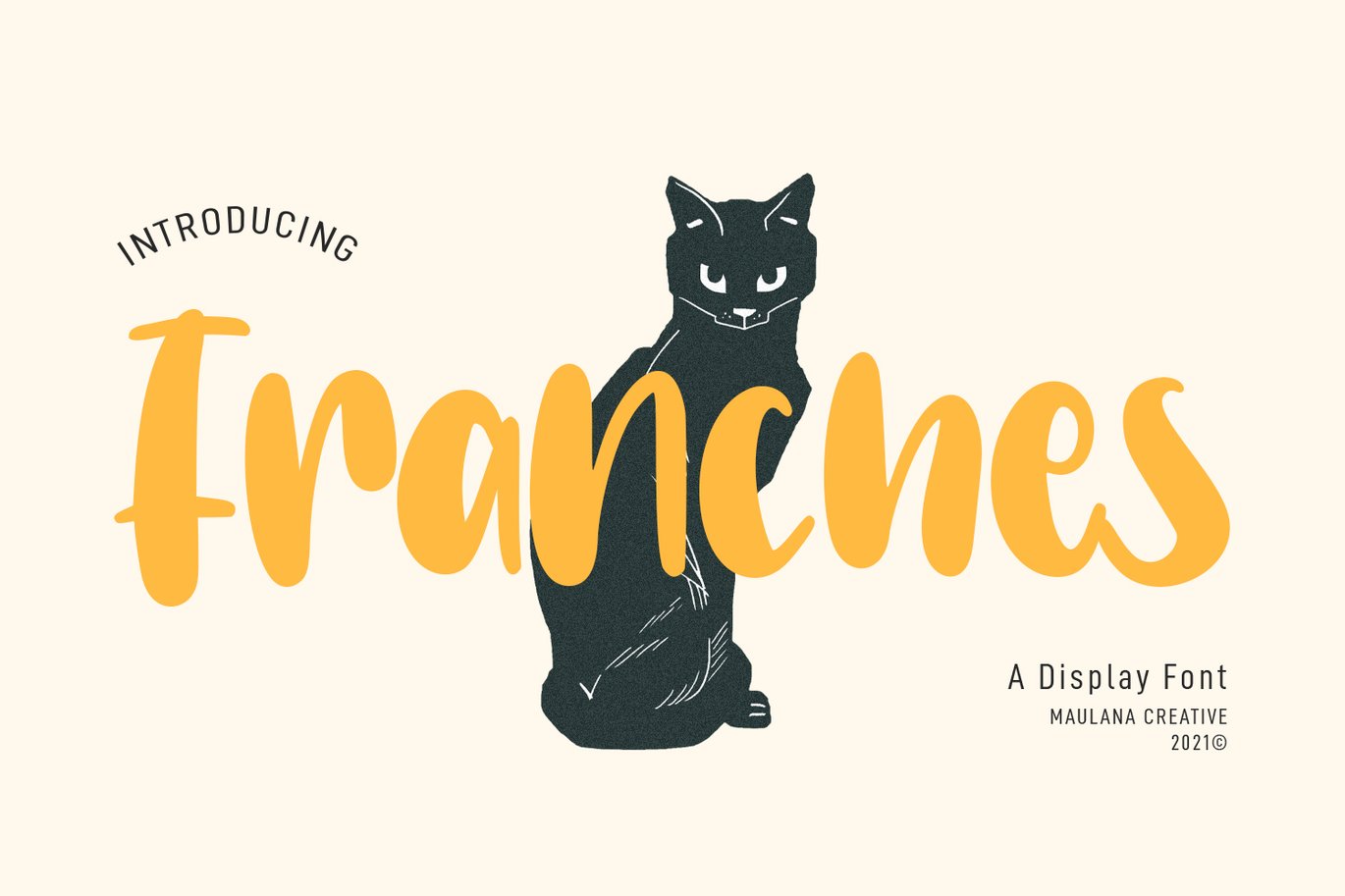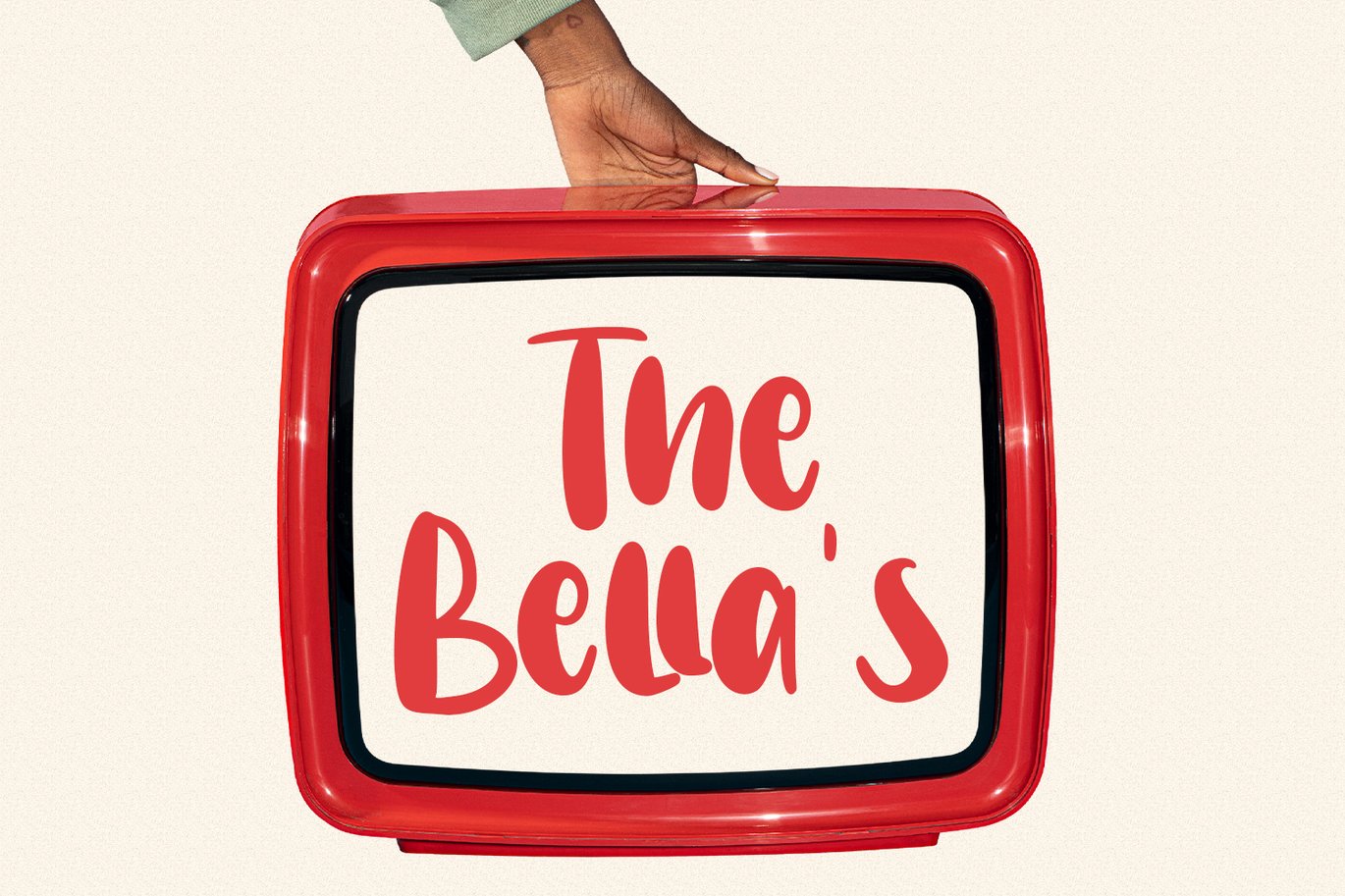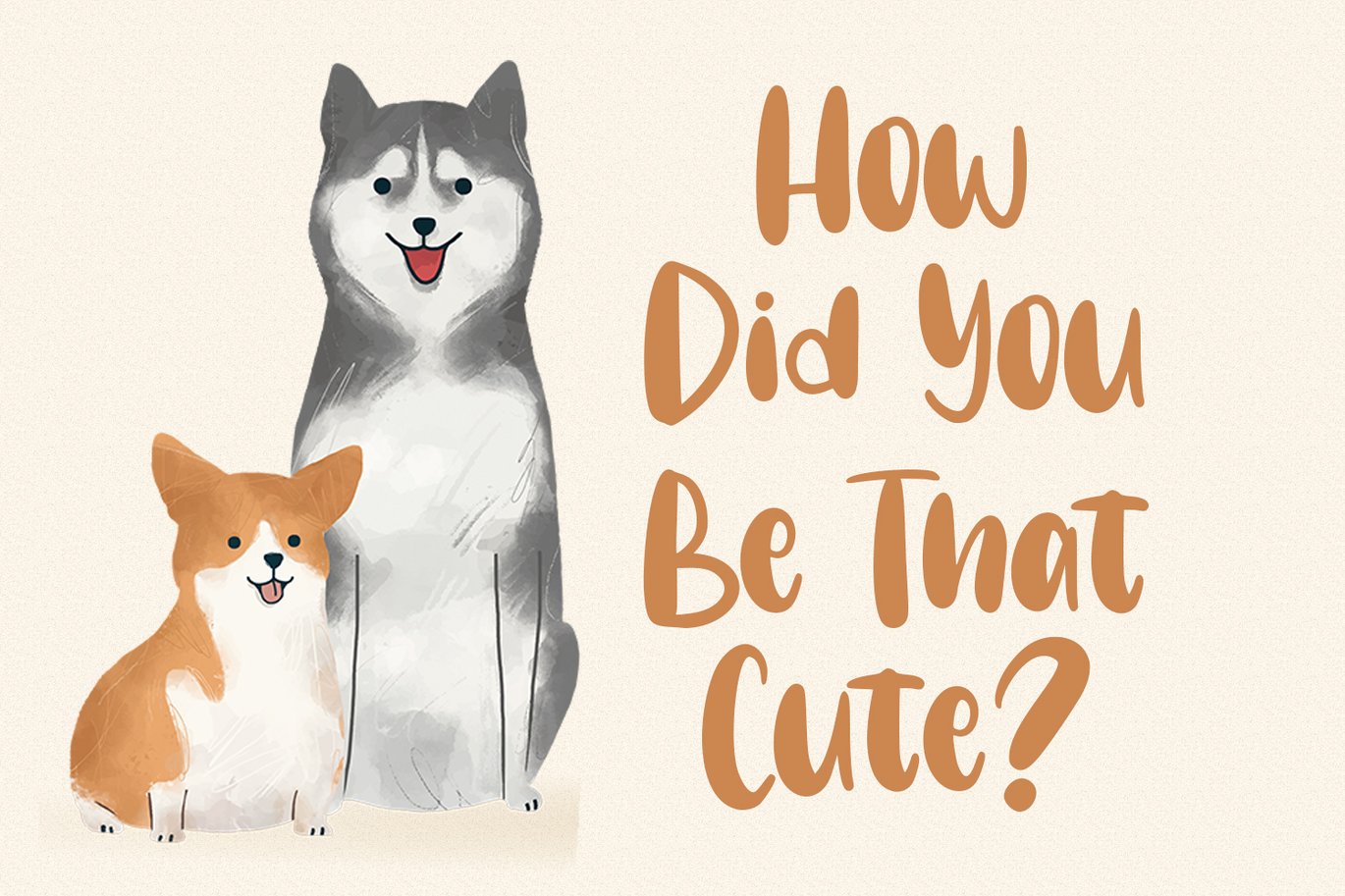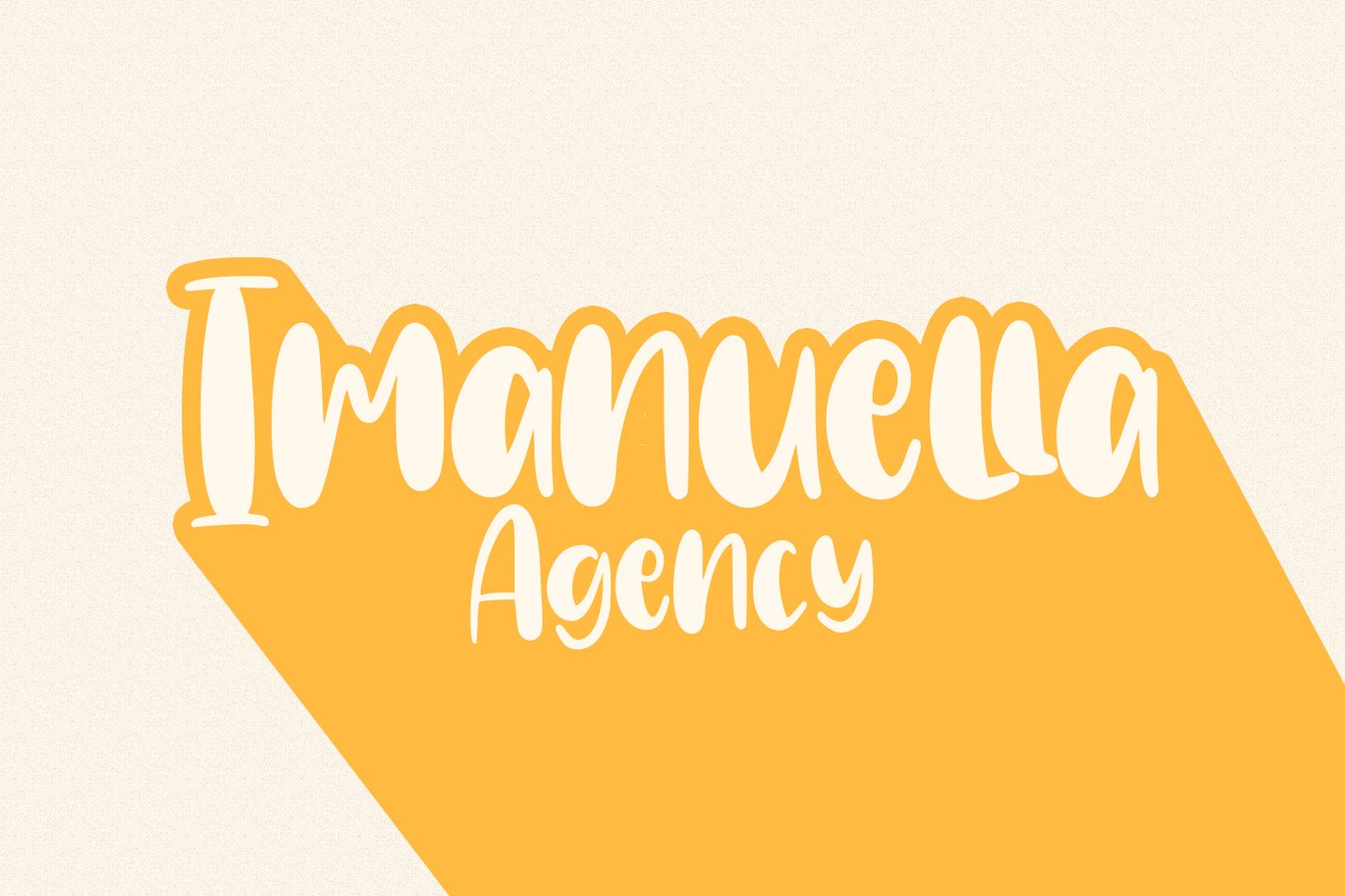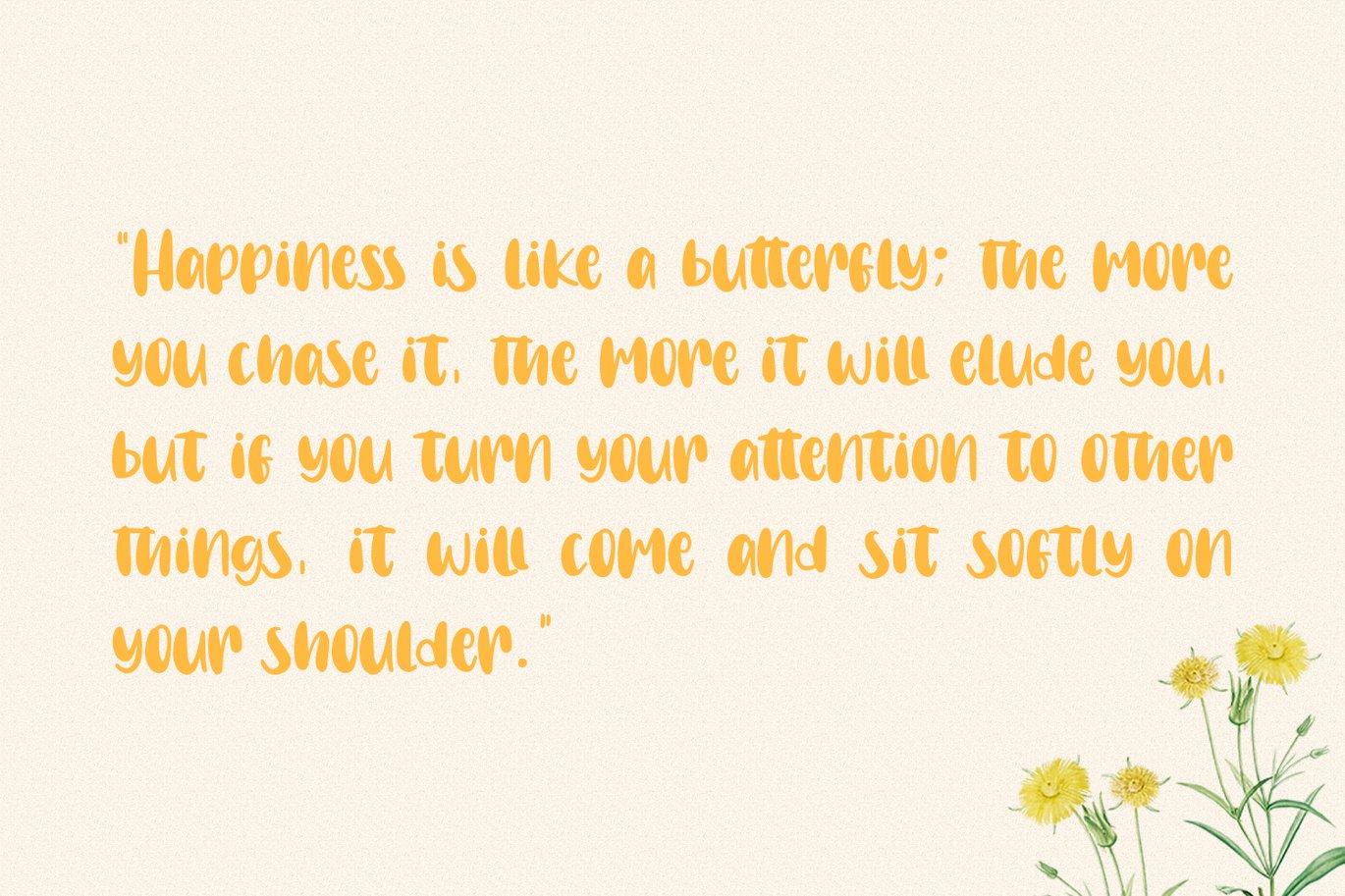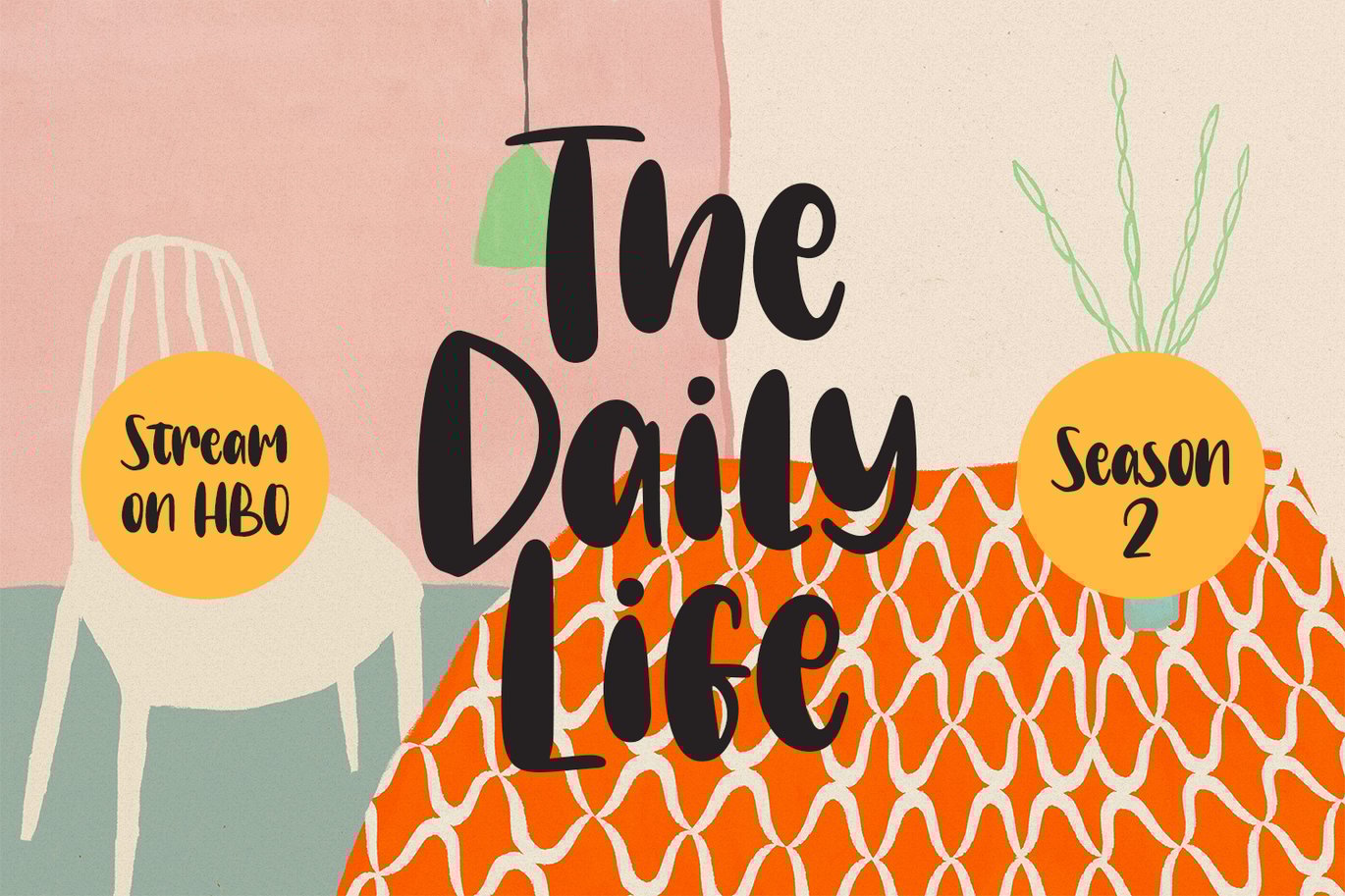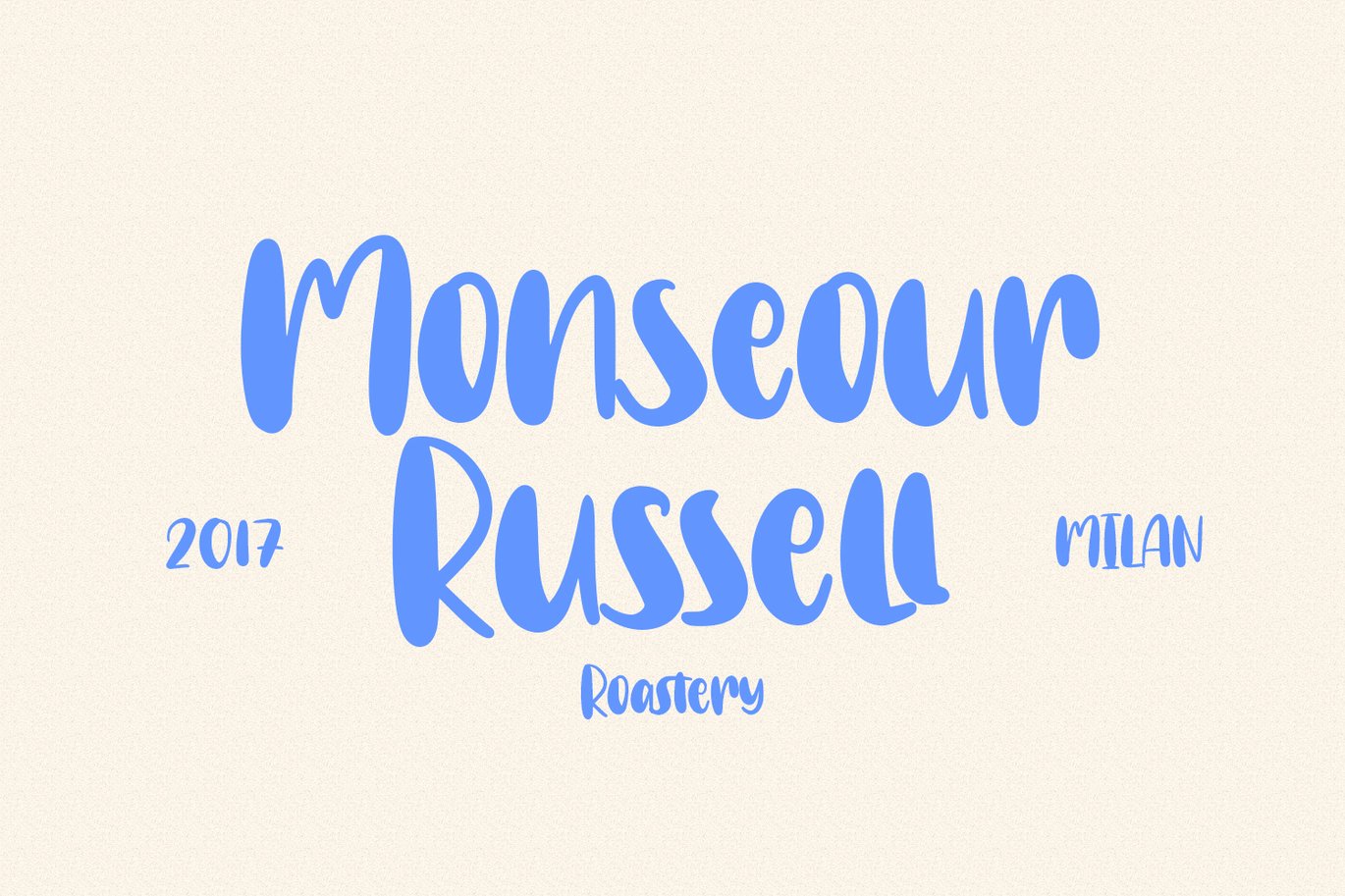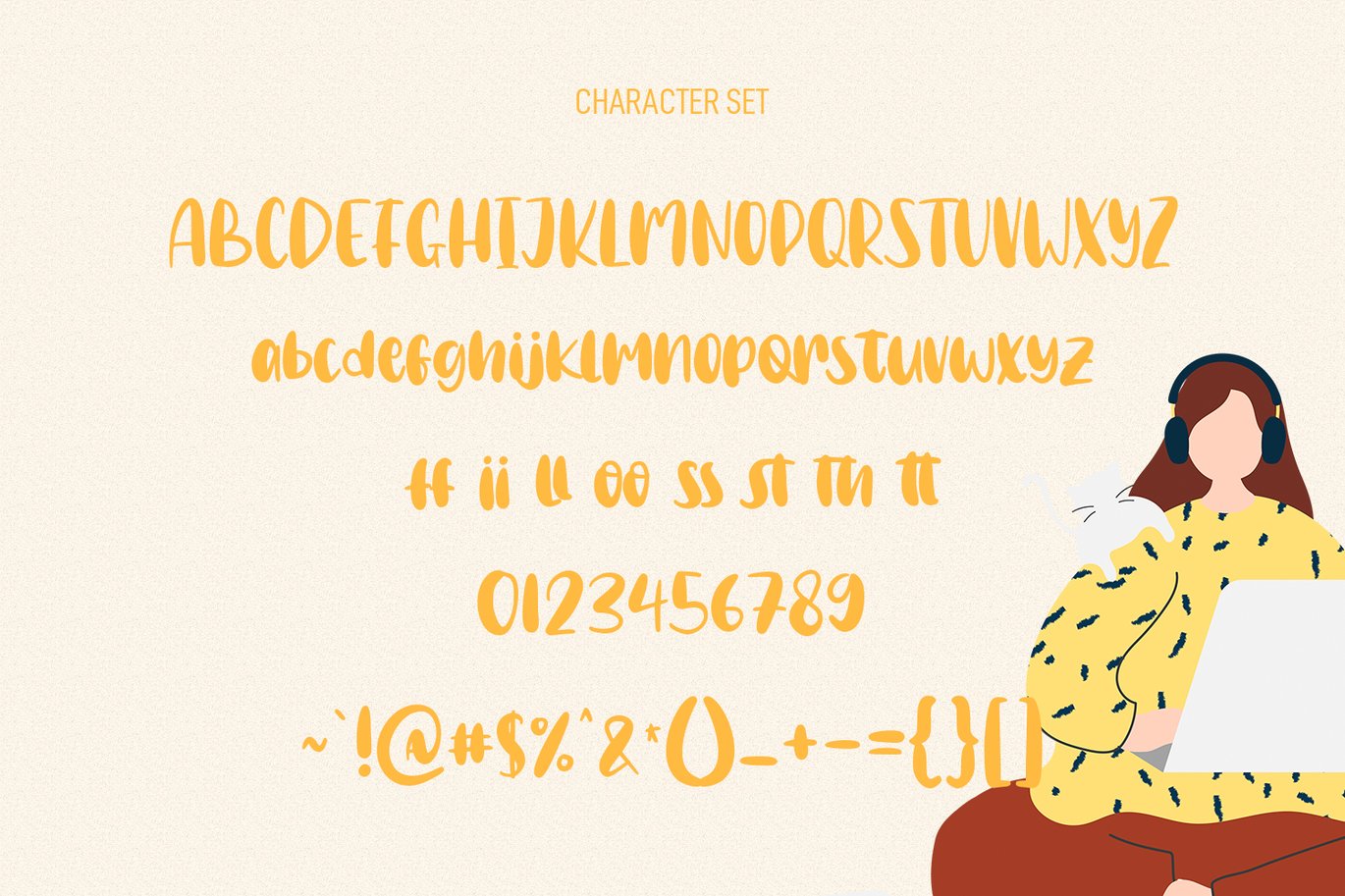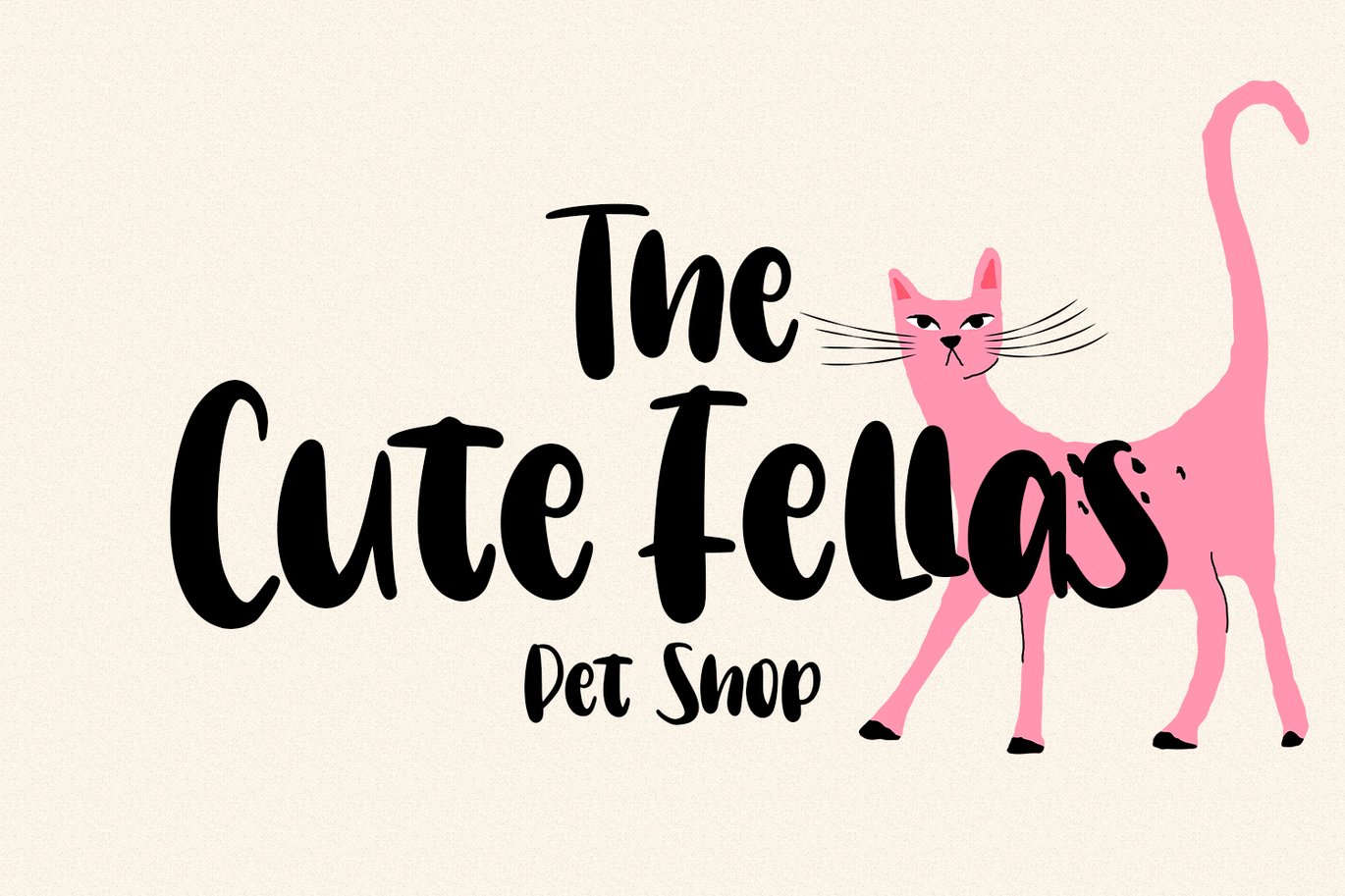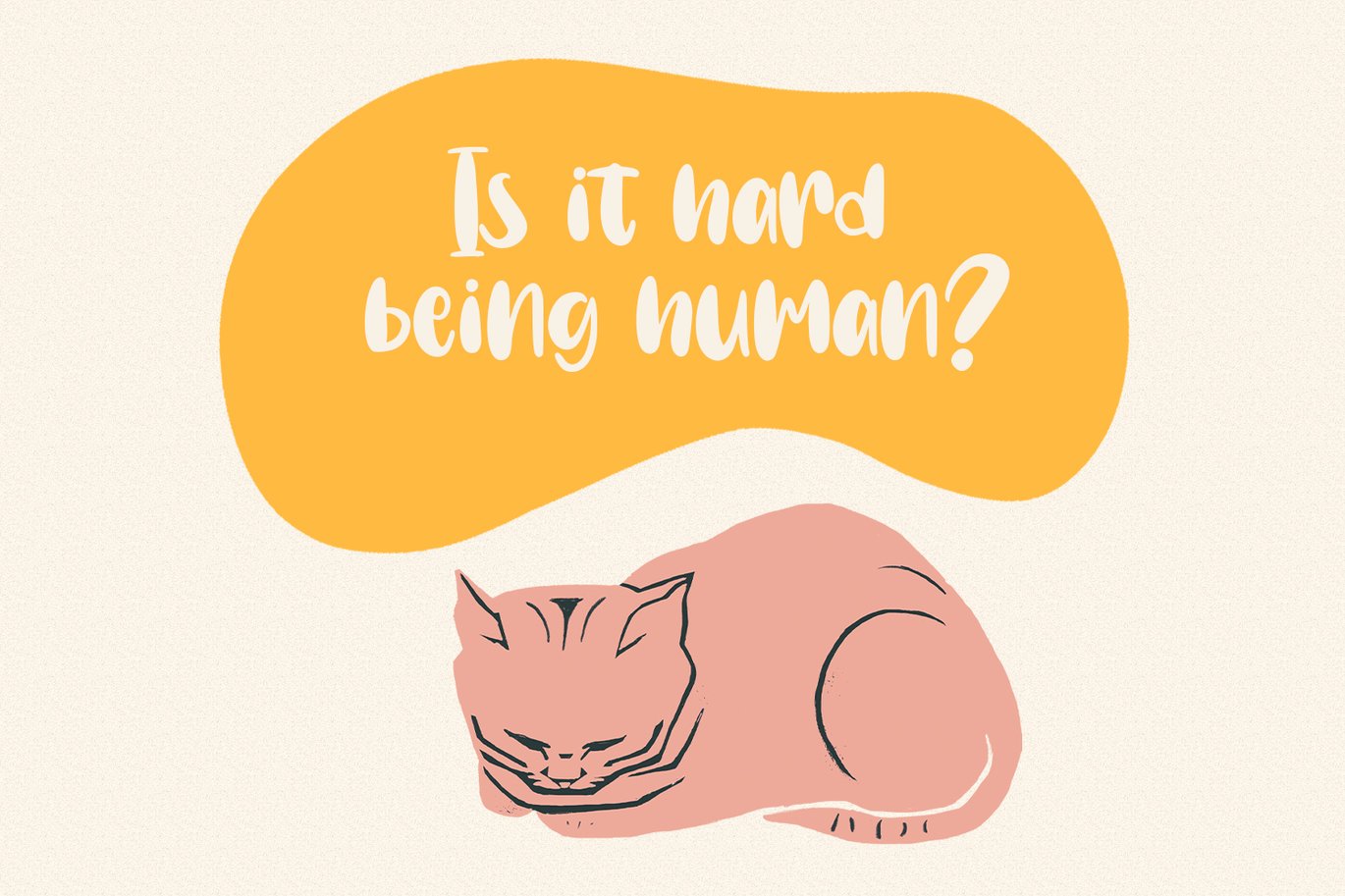
Franches Cute Handwritten Font
Franches is a Cute handwritten font. With high contrast bold stroke, upright and fun character with a bit of ligatures. To give you an extra creative work. Franches font support multilingual more than 100+ language. This font is good for logo design, Social media, Movie Titles, Books Titles, a short text even a long text letter and good for your secondary text font with sans or serif. Make a stunning work with Franches font.